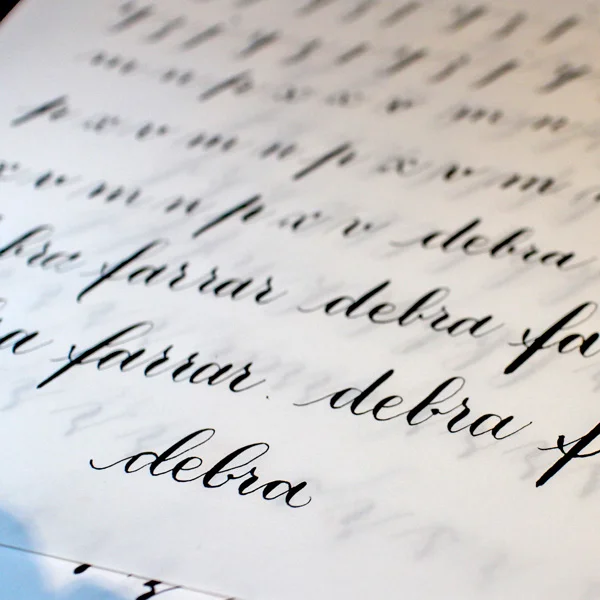
Are you quoting dumb or smart? If you’re using InDesign, your default is smart.
Typographer’s quotes (otherwise known as smart quotes or curly quotes) are a default preference in Adobe InDesign. To find your preferences in InDesign, go to Preferences > Type.
Just like a smooth cup of coffee or a cozy warm blanket, a beautifully-set justified paragraph… just feels... so… right.
Scripts are a great way to add elegance and personality to any layout. However, with swashes, connectors, alternate characters, and casual handwriting styles, script fonts can sometimes be difficult to read.
Depending on what you’re using them for, you may need fonts with more readability and less style. For the ultimate scanability at large sizes, or readability for introductory paragraphs of up to 35 words, you will want an extremely easy-to-read script.
More than once, I‘ve heard this question from young designers, “why should one know typography? So-and-so just did their own thing and now they have 50K followers on Instagram.”
When it comes to recognizing good design, many designers (and clients) say they know it “when they see it.” So when it comes to the act of designing, maybe it’s why some designers jump straight to the computer and move boxes around the page until the stars align.
Every once in a while, we bring our Wine & Type Pairing social event to designers, and we like to share our method of pairing typefaces to make the process easier and faster. In this mini-workshop, we reveal three ways to pair typefaces together in a quick and easy method that saves time for designers.
Two typefaces create a solid foundation for any type system, and here is our process for building a two-typeface system.
The bridge between the amateur designer and the professional designer is typography mastery. And although theory, tools, and tactics are part of a well-rounded skill set, it’s just as important to possess a growth mindset to really master your craft.
Let me explain.
A mindset is a belief or attitude that orients the way someone handles situations. It predetermines the way a person interprets and responds to a circumstance.
I’m going to ask you to be honest with me, and I’ll be honest with you.
Why is it important to you to improve your type and design skills? For us, it's to keep the lights on and allow us to keep doing what we love.
Precisely ‘nailing’ a concept pays the bills. How?
Name brands that are part of our vernacular don’t become everyday nouns and verbs by accident. Such brand organizations have a voice in our world that we resonate with.
We personally align ourselves to brands that symbolize our values, knowing they help us identify with others who share the same ideals and strengthen those connections between each other. We use brand names, logos, taglines, colors, and messages as smoke signals in a noise-filled world.
Sometimes I’m scared shitless of saying ‘counter’ when I mean ‘bowl,’ and vice versa. Why? I might get jumped on by the type community on using the correct terminology. So imagine my anxiety when I start saying the word ‘orphan.’ Why? Because the two terms ‘orphans’ and ‘widows’ are interchanged all the time.
Names of things do not typically affect what they really are. Whatever their names both of these type crimes are still very painful to look at.
I enjoy working with people who are serious about learning more about typography and make strides in their work. Those of you who have taken my Boot Camp Clinic know how repetitive drills can train your typesetting muscle memory and sharpen your eye.
Are you that person? I'd like to help you improve the typography work by spending some time reviewing your work and giving feedback on your projects. Jump on a private face-to-face portfolio review with me to gain some specific tips and changes to help you improve your type.
“The devil is in the detail” is an idiom for that which is small things are often overlooked and cause problems later on. Much like a beautiful wine glass with a hairline crack. Although tiny details seem insignificant, the imperfections disrupt an experience, because they too are essential to the whole.
It’s been a little more than a year since I began my interview series, Typography Dojo, and I feel like I’ve learned so much along the way from typographic masters!
I was taught to handle both ends of the type spectrum. Meaning, you can hand-draw type, which is lettering, where you’re handling three or four words at the max. I was also taught that a good designer has to be able to handle 300 words or more on a page in typesetting. A good designer needs to handle both.
Say you have a new client who hires you to design their company identity. When beginning design directions, where do you start? What types of logos should you present?
There are five different types of logos, or six, if you include characters/mascots.